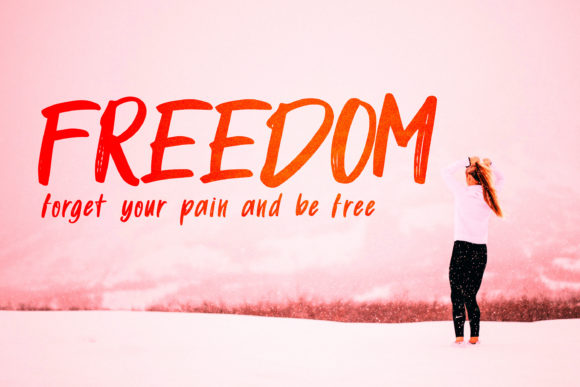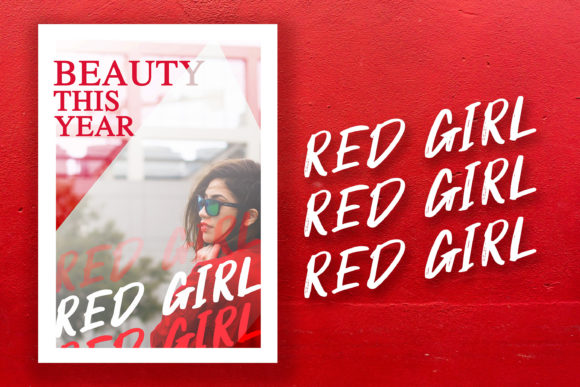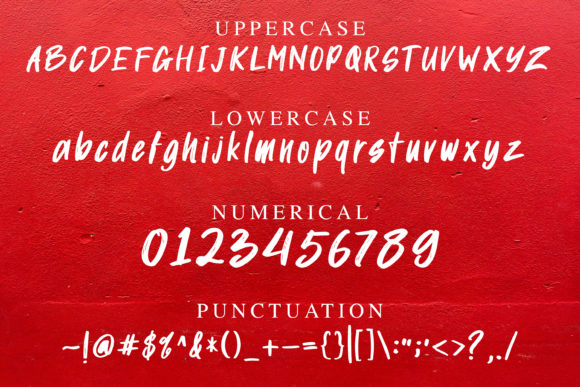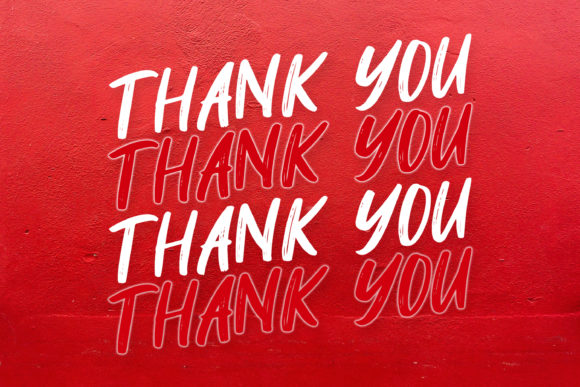
Introduction to Guinel Font
Have you ever been working on a creative project and suddenly, the perfect font pops into your mind, transforming your idea into a masterpiece? For designers, this moment is pure magic. And today, I want to share with you a secret that will make your designs stand out: the enchanting Guinel Font.
This sweet and charming display font is more than just a pretty face – it’s a game-changer for any high-quality design project. With its unique style, Guinel Font will add a touch of elegance and sophistication to your work, making it truly unforgettable.
Key Features of Guinel Font
- High-quality design: Guinel Font is crafted with attention to detail, ensuring a professional look for any creative project.
- Transparent background: The transparent background of Guinel Font allows for seamless integration into various design elements.
- Supports multiple languages: Guinel Font supports a wide range of languages, making it a versatile design resource.
Honest Review: Guinel Font
I recently came across the Guinel Font, a free download that’s quickly become a design resource staple in my creative project workflow. At first glance, I was impressed by its high quality and sleek aesthetic.
- ✨ The Guinel Font’s modern design is perfect for a variety of creative projects, from editorial to branding materials.
- ✨ Its transparent background allows for seamless integration with other design elements.
- ✨ The font is highly customizable, making it a great choice for designers who like to get creative with their typography.
- ⚠️ The font is not ideal for complex text-heavy projects, as the weight and spacing can be a bit inconsistent.
- ⚠️ While the transparent background is a plus, it can also make the font more prone to pixelation when used at small sizes.
Overall, I’m quite impressed with the Guinel Font. Its unique design and high quality make it a valuable addition to any designer’s toolkit. While it may not be perfect for every project, it’s definitely worth checking out for your next creative endeavor.
Tips for Getting the Most Out of Guinel Font
Guinel Font is a high-quality design resource that can add a unique touch to your creative project. To get the most out of it, try pairing it with a transparent background to create a clean and modern look. You can also experiment with different font sizes and styles to create visual interest.
Guinel Font is a versatile design resource that can be used in a variety of contexts, including logos, branding materials, and digital graphics. It’s also a great choice for creating titles and headings in presentations and documents.